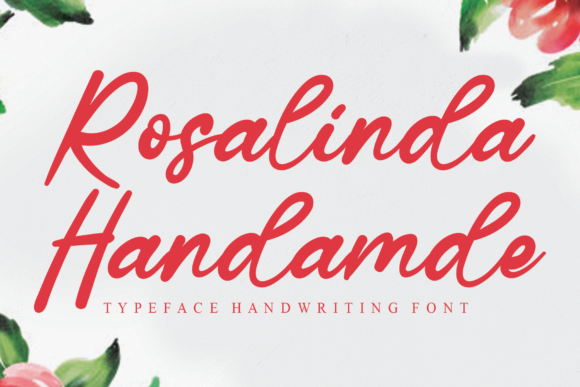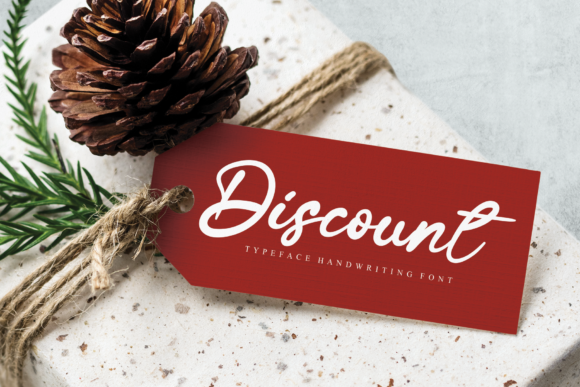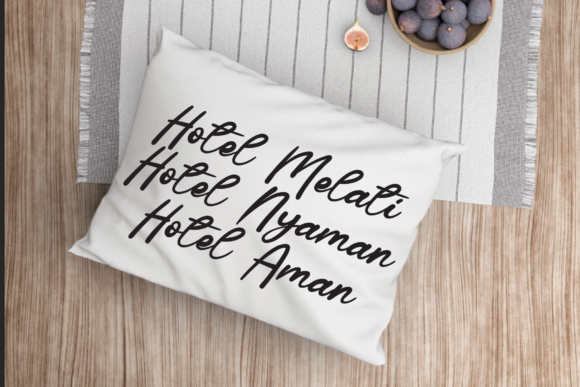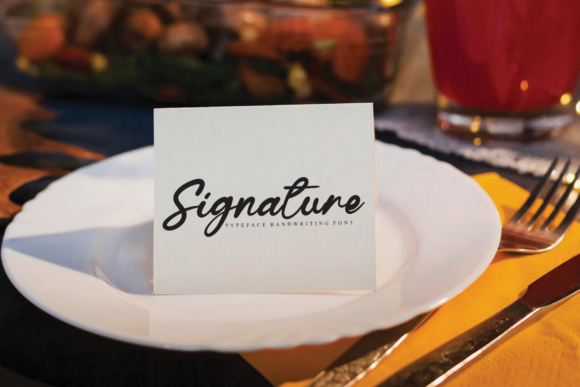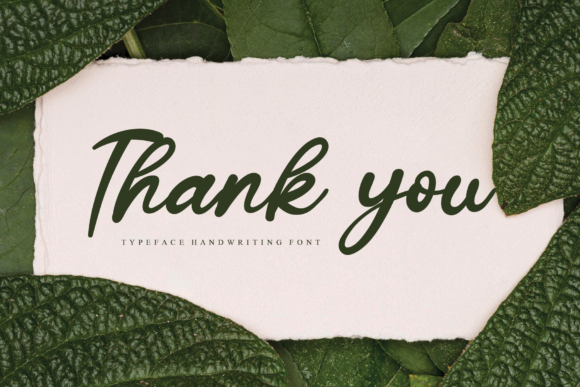
Rosalinda Handamde Font
About Rosalinda Handamde Font
Rosalinda Handmade is a beautiful and enchanting handwritten font that brings a touch of elegance and romance to your design projects. With its graceful and flowing letterforms, this font adds a unique and personal touch to any design idea you can think of.
The elegance of Rosalinda Handmade makes it a perfect choice for wedding invitations, love letters, and romantic greeting cards. Its delicate strokes and charming curves create a sense of intimacy and tenderness, setting the tone for a truly heartfelt message. Whether you’re planning a wedding or expressing your love in a heartfelt note, Rosalinda Handmade adds a touch of romance and elegance to your words.
Beyond romantic occasions, Rosalinda Handmade can be used for a variety of design projects. Its sweet and handwritten style brings a warm and personal feel to logos, branding materials, and packaging. Whether you’re creating a boutique brand, a handmade product line, or a charming café, Rosalinda Handmade adds a touch of artisanal elegance and creates a memorable impression.
For social media graphics, Rosalinda Handmade stands out with its unique and eye-catching appearance. Whether it’s Instagram quotes, Pinterest graphics, or Facebook posts, this font adds a touch of whimsy and personality to your visuals. Its romantic spark draws attention and creates a connection with your audience, making your messages more engaging and memorable.
Additionally, Rosalinda Handmade can be used for editorial designs, such as book covers and magazine layouts. Its elegant and sweet style adds a touch of sophistication and charm to your text, creating an inviting and visually appealing reading experience. Whether it’s a novel, a poetry collection, or a lifestyle magazine, Rosalinda Handmade brings a unique and captivating element to your editorial designs.
In summary, Rosalinda Handmade is an elegant and sweet handwritten font that adds a romantic spark to any design project. Its enchanting and graceful style is perfect for wedding invitations, love letters, branding materials, social media graphics, and editorial designs. Embrace the elegance and charm of Rosalinda Handmade and let it add that special enchanting touch to your designs.